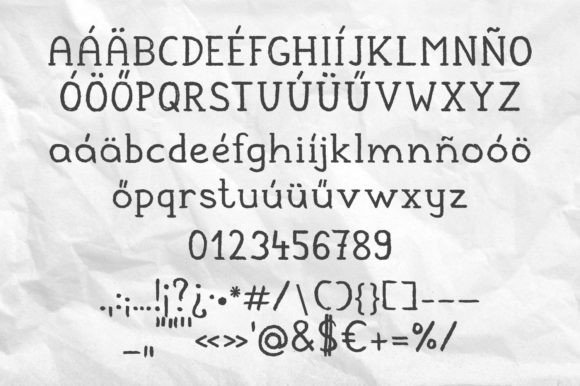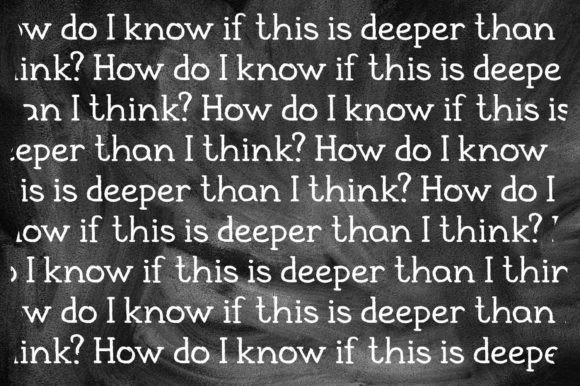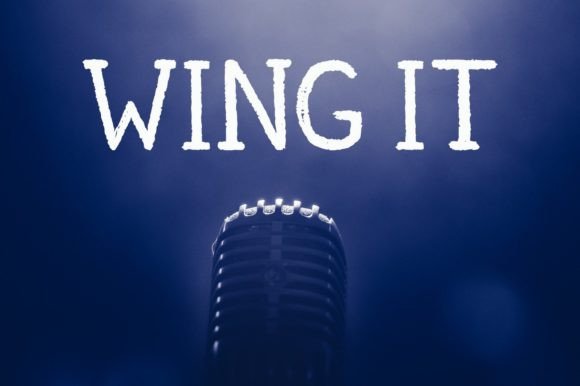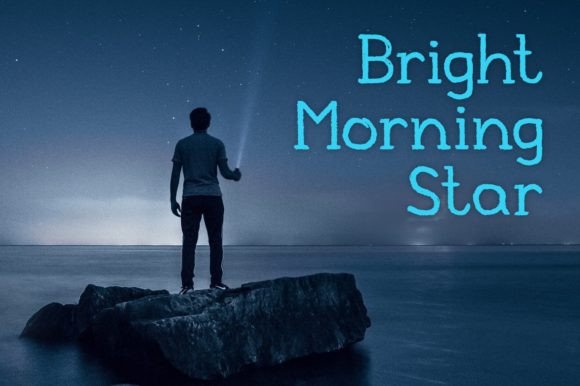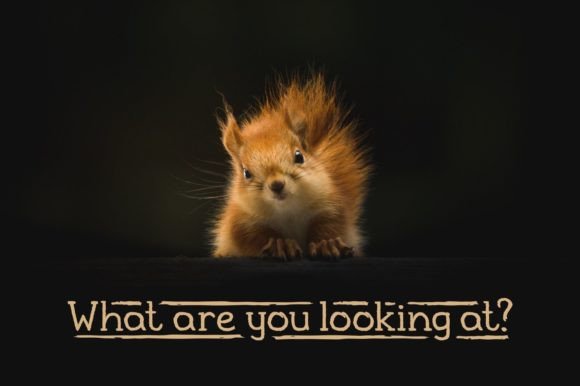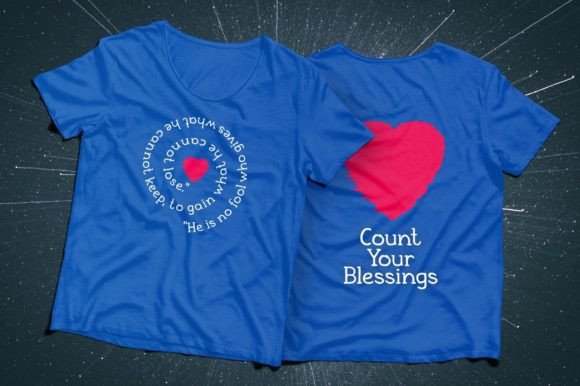
Introducing Grafit Serif Font: The Ultimate Handmade Pencil Font for Creative Designs
Are you a designer, craftsperson, or creative looking for a unique and eye-catching font to elevate your projects? Look no further than Grafit Serif Font, a cool and rough handmade pencil font that’s perfect for a wide range of applications. In this article, we’ll explore the features and benefits of Grafit Serif Font and show you how to make the most of this versatile typeface.
What is Grafit Serif Font?
Grafit Serif Font is a one-of-a-kind, handmade pencil font that’s been carefully crafted to give your designs a distinctive, hand-drawn feel. With its rough, textured appearance and elegant serif details, Grafit Serif Font is ideal for creating visually striking logotypes, headlines, and other graphical elements.
Key Features of Grafit Serif Font
• Handmade with love: Grafit Serif Font is a genuine handmade font, created with precision and care to ensure a unique, organic look.
• Cool and rough texture: The font’s rough texture gives it a distinctive, pencil-drawn feel that’s perfect for creating edgy, artistic designs.
• Elegant serif details: The serif details add a touch of sophistication and elegance to the font, making it suitable for a wide range of applications.
• Highly versatile: Grafit Serif Font can be used for logotypes, headlines, apparel designs, posters, music and movie titles, game graphics, magazine and comic book titles, and more.
Use Cases for Grafit Serif Font
Grafit Serif Font is an incredibly versatile typeface that can be used in a wide range of creative projects. Here are some ideas to get you started:
• Logotypes and branding: Create a memorable brand identity with a custom logotype using Grafit Serif Font.
• Apparel designs: Add a touch of personality to your t-shirt, hoodie, or hat designs with Grafit Serif Font.
• Posters and flyers: Create eye-catching posters and flyers for concerts, movies, or events using Grafit Serif Font.
• Music and movie titles: Add a touch of grit and sophistication to your music or movie titles with Grafit Serif Font.
• Game graphics: Use Grafit Serif Font to create bold, eye-catching graphics for your game or app.
• Magazines and comics: Add a touch of personality to your magazine or comic book titles with Grafit Serif Font.
• YouTube and Instagram: Use Grafit Serif Font to create engaging thumbnails and titles for your YouTube videos or Instagram posts.
• Websites: Add a touch of elegance and sophistication to your website with Grafit Serif Font.
Tips for Using Grafit Serif Font
To get the most out of Grafit Serif Font, here are some tips to keep in mind:
• Experiment with font sizes: Grafit Serif Font looks great in a variety of font sizes, from large headlines to smaller body text.
• Play with color: Try pairing Grafit Serif Font with bold, bright colors to create a striking visual effect.
• Add texture and effects: Experiment with adding texture and effects to your text, such as gradients or shadows, to give it a more dynamic look.
• Mix and match: Don’t be afraid to mix and match Grafit Serif Font with other fonts to create a unique visual identity.
Grafit Serif Font is a unique and versatile typeface that’s perfect for designers, craftspersons, and creatives looking to add a touch of personality to their projects. With its handmade, pencil-drawn feel and elegant serif details, Grafit Serif Font is sure to elevate your designs and help you stand out from the crowd. So why wait? Download Grafit Serif Font today and start creating!